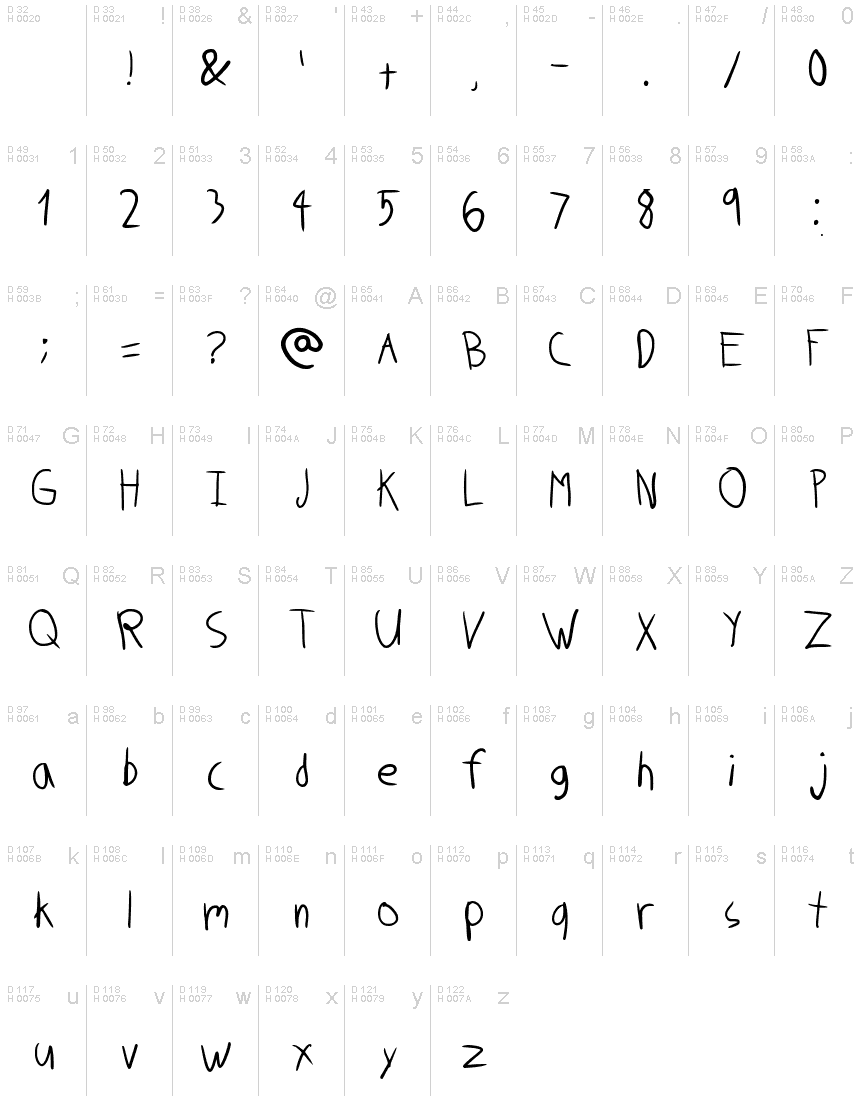
Comical Power Regular
Comical Power is a casual handwritten font created by Minato Dela Cruz. It has a light, fun feel that makes it perfect for projects looking to add a touch of whimsicality. From crafting posters and signs to creating albums and invitations, Comical Power can add the perfect lighthearted vibe. It is also great for logos and titles that need an extra bit of personality.
This is for comic artists to use, mainly.